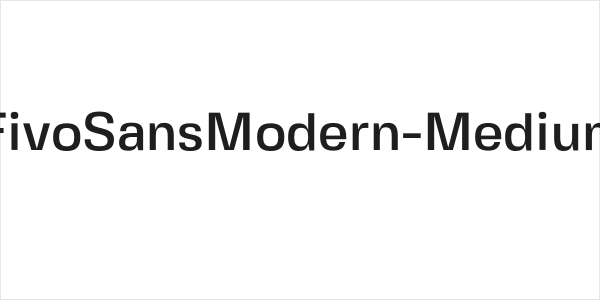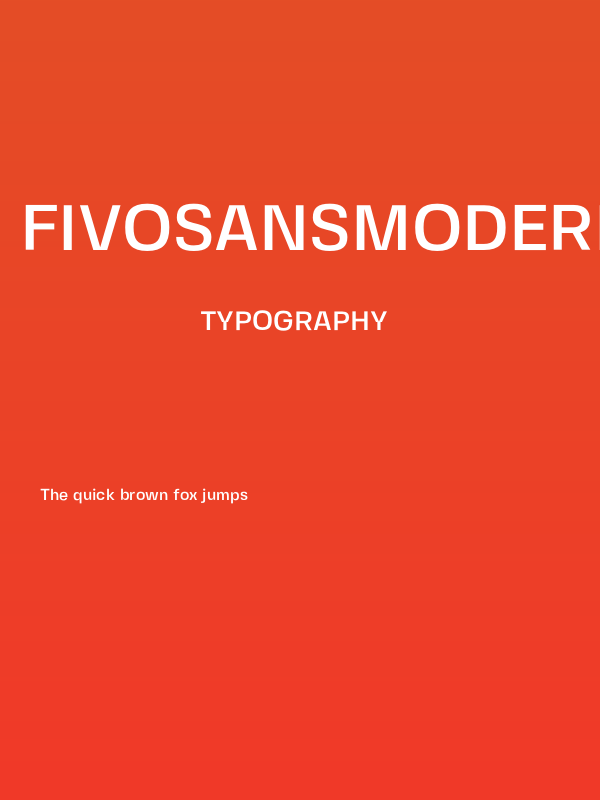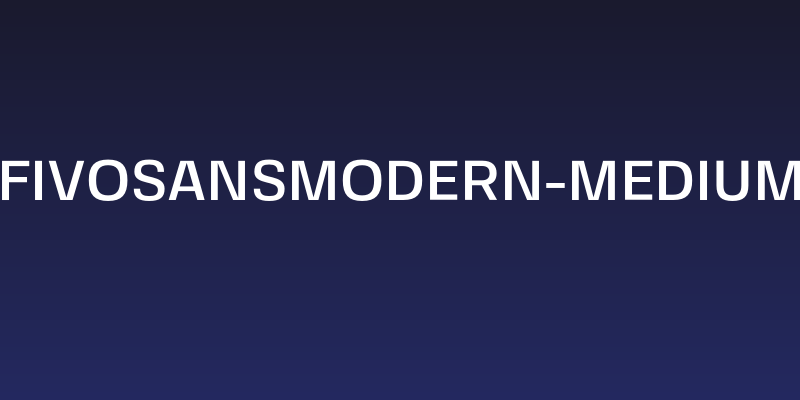
FivoSansModern-Medium Font
FivoSansModern-Medium Description
This font exhibits a clean and modern sans-serif style with a balanced and uniform appearance. The characters are well-proportioned, featuring a medium weight that provides a solid presence without being overly bold. The design is straightforward, with smooth curves and straight lines that enhance readability. Its geometric structure gives it a contemporary feel, making it suitable for a wide range of applications. The numerals are clear and distinct, and the special characters are well-integrated into the overall design, ensuring consistency across all glyphs.